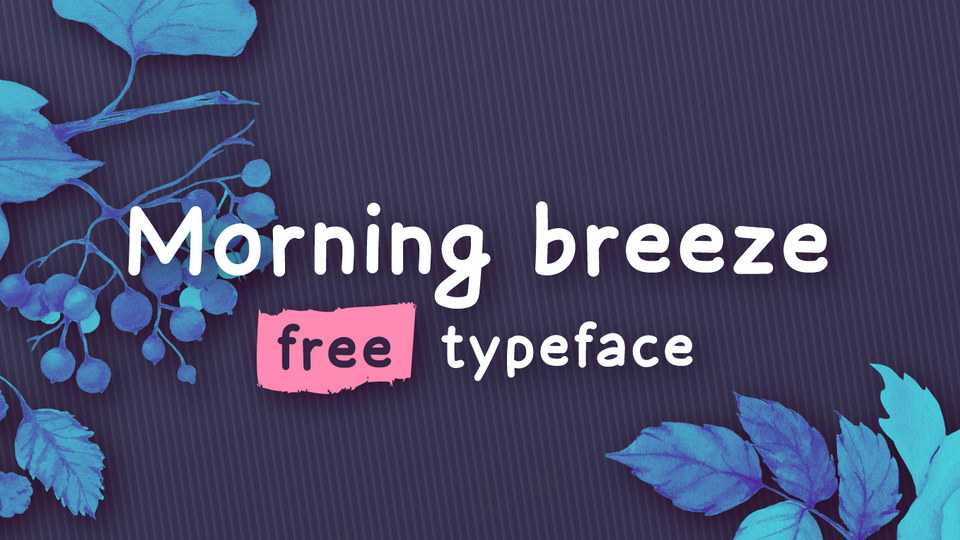
Download Morning Breeze font, a handmade, cute and quirky typeface. Simple and adaptable, Morning Breeze font is perfect for comics, doodle, crafts, cards, quotes, posters, children’s books and more.
Designer: Szymon Furjan